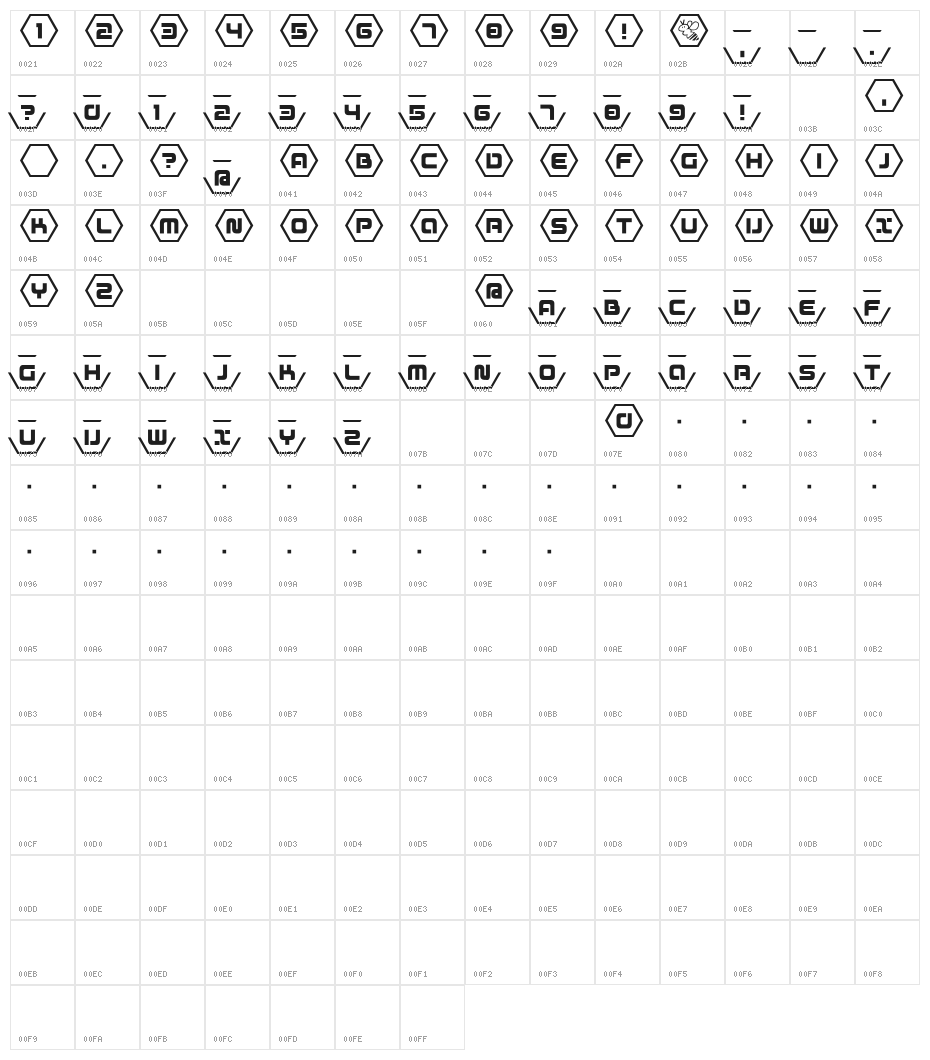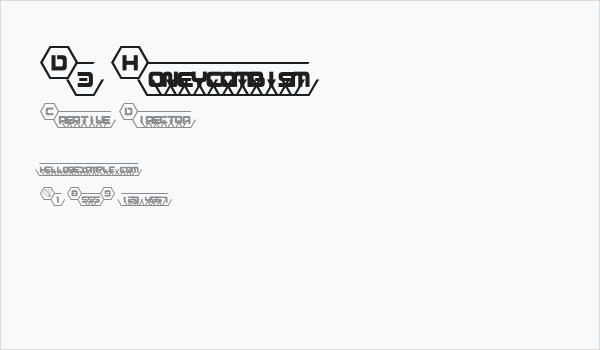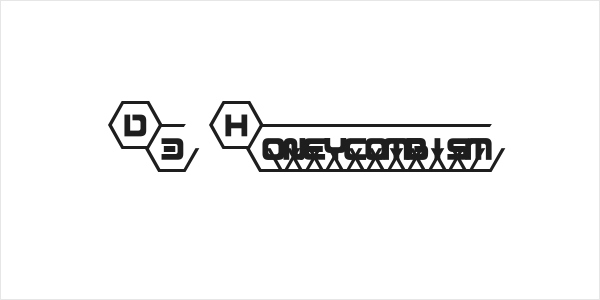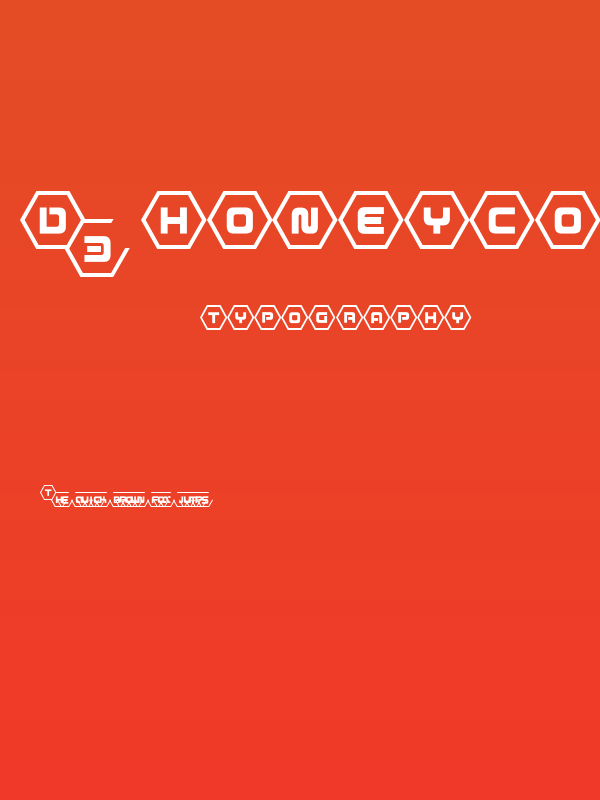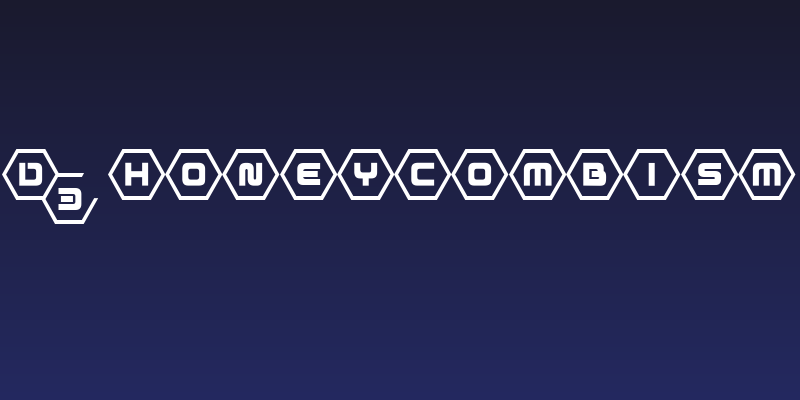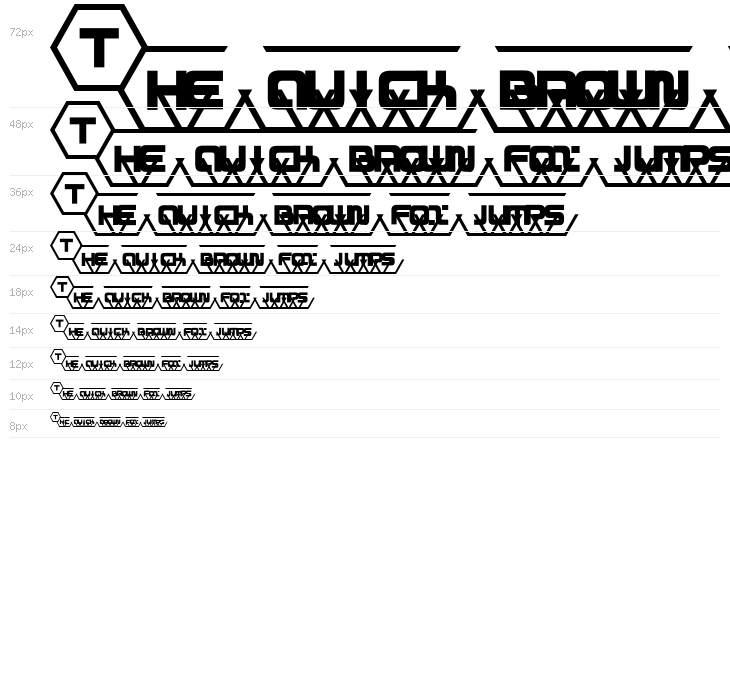
D3 Honeycombism Font
D3 Honeycombism Description
This font features a unique hexagonal design where each character is enclosed within a hexagon, creating a futuristic and geometric aesthetic. The uppercase letters are bold and angular, with a consistent thickness that emphasizes their modern style. The lowercase letters maintain the hexagonal theme, offering a cohesive look across the alphabet. Numbers and special characters are also designed within hexagons, ensuring uniformity. The overall appearance is striking and suitable for projects that require a bold, modern touch.
D3-HONEYCOMBISM UPPERCASE
D3-HONEYCOMBISM LOWERCASE
D3-HONEYCOMBISM OTHER CHARS
| Proposed Projects | Ideal for sci-fi themed designs, tech branding, video game titles, and futuristic posters. |